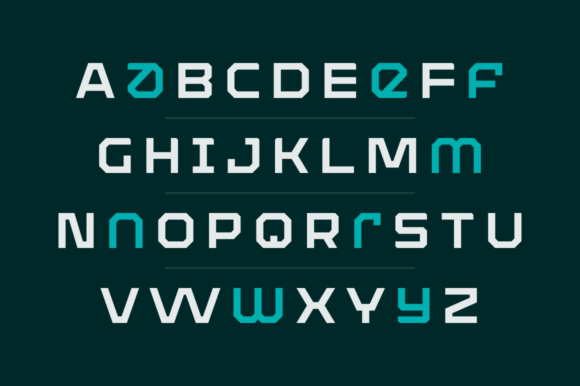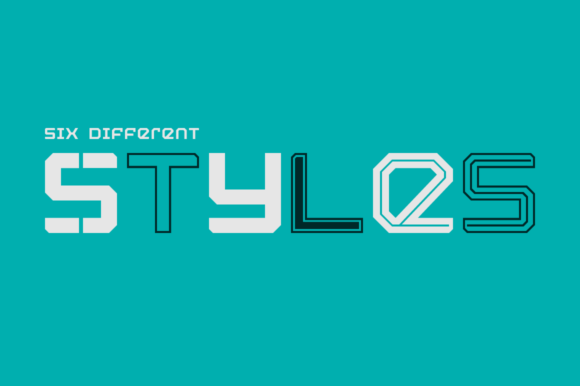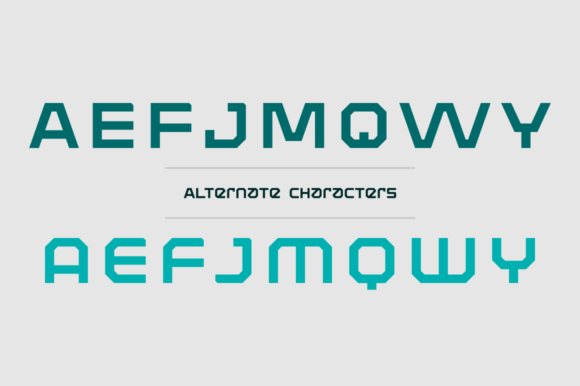
Introducing Armadura Family Font: A Geometric Display Typeface
In the world of typography, font families play a crucial role in defining the visual identity of a brand or design project. One such font family that has gained significant attention in recent years is Armadura, a geometric display typeface designed by Pablo Balcells for Graviton Font Foundry in 2012. With its unique angular look and versatility, Armadura has become a popular choice among designers and crafters.
Design and Characteristics
Armadura font family is characterized by its geometric and angular design, which gives it a distinctive look. The font family consists of six styles, offering a range of options for designers to choose from. The clean lines, precise curves, and sharp edges of Armadura make it an ideal choice for display purposes, such as headlines, titles, and signage.
Key Features of Armadura Font Family
- Geometric Design: Armadura’s geometric design makes it perfect for creating modern and sleek designs.
- Angular Look: The font’s angular look adds a touch of sophistication and elegance to any design.
- 6 Styles: With six styles to choose from, designers can experiment with different variations to find the perfect fit for their project.
- Display Typeface: Armadura is specifically designed as a display typeface, making it ideal for headlines, titles, and other display purposes.
Use Cases for Armadura Font Family
Armadura font family can be used in a variety of design projects, including:
- Branding and Identity: Armadura’s unique design makes it an excellent choice for creating brand identities, logos, and letterheads.
- Advertising and Marketing: The font’s display capabilities make it perfect for creating eye-catching headlines and titles for advertisements and marketing materials.
- Signage and Wayfinding: Armadura’s clear and legible design makes it suitable for signage and wayfinding systems.
- Packaging and Labeling: The font’s geometric design and angular look make it an excellent choice for packaging and labeling.
Why Choose Armadura Font Family?
With so many font families available, why choose Armadura? Here are a few reasons:
- Unique Design: Armadura’s geometric and angular design sets it apart from other font families.
- Versatility: With six styles to choose from, Armadura offers a range of options for designers.
- Legibility: The font’s clear and precise design makes it easy to read, even at small sizes.
In conclusion, Armadura font family is a versatile and unique display typeface that offers a range of design possibilities. Its geometric and angular design makes it perfect for creating modern and sleek designs, while its legibility and versatility make it suitable for a variety of design projects. Whether you’re a designer or crafter, Armadura is definitely worth considering for your next project.